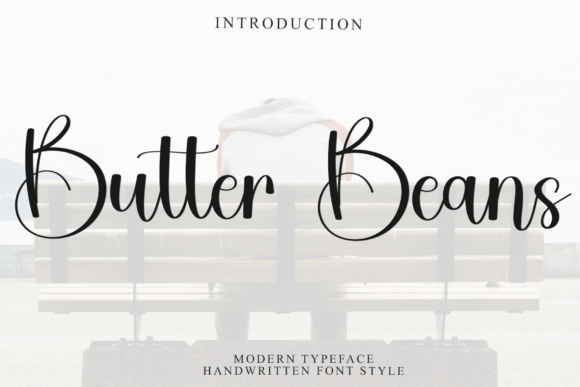
The Elegance of Butter Beans Font: A Designer’s Delight
I still remember the day I stumbled upon Butter Beans Font while working on a wedding invitation project. I had tried countless fonts, but none seemed to capture the elegance and whimsy I was looking for. That was until I laid eyes on Butter Beans – its stylish, elegant script instantly won me over. In this article, I’ll share my experience with this beautiful font, its features, and how to make the most of it in your designs.
An Honest Review of Butter Beans Font
So, what makes Butter Beans Font so special? Here are a few things I love about it:
- ✨ Elegant and stylish script that adds a touch of sophistication to any design
- ✅ Highly versatile and suitable for various design projects, including wedding invitations, thank you cards, quotes, and more
- 💫 Beautifully crafted to give your designs a handwritten touch
While Butter Beans Font is a stunning addition to any design project, there are a few quirks to be aware of:
- ⚠️ Some users may find the font a bit too ornate for certain projects, so it’s essential to use it judiciously
- 🤔 Limited availability of certain characters and glyphs, which may require some creative workaround
The Story Behind Butter Beans Font
Butter Beans Font was designed with the intention of creating a beautiful, elegant script font that would add a touch of sophistication to any design project. The designer, who wishes to remain anonymous, drew inspiration from classic calligraphy and modern typography to create a unique and stylish font.
| What is Butter Beans Font best suited for? | Butter Beans Font is perfect for wedding invitations, thank you cards, quotes, greeting cards, logos, business cards, and more. |